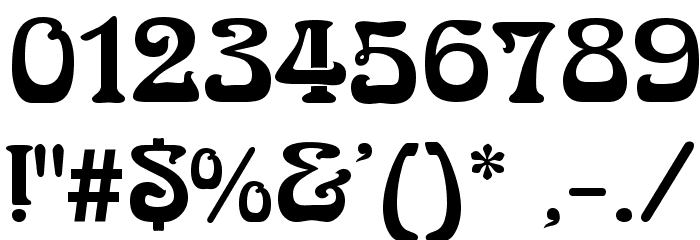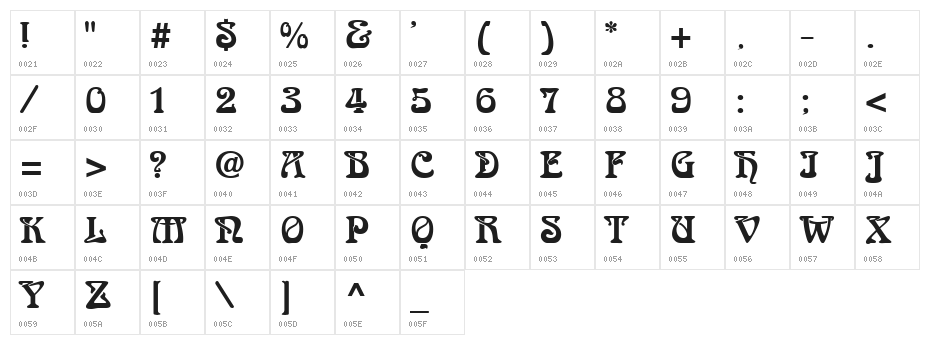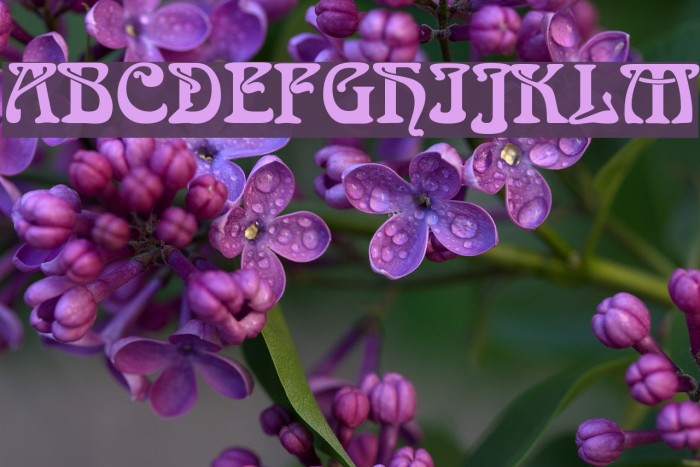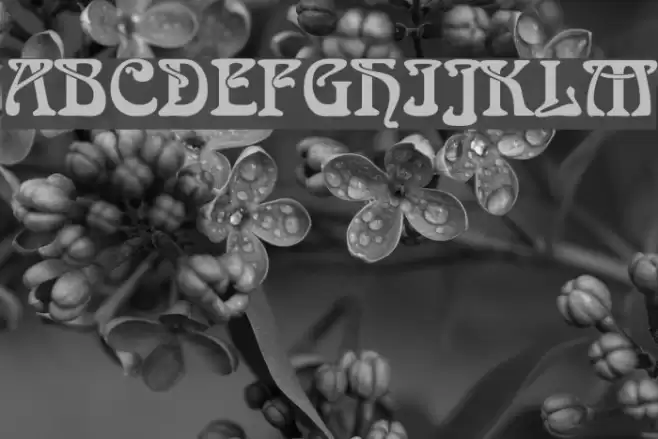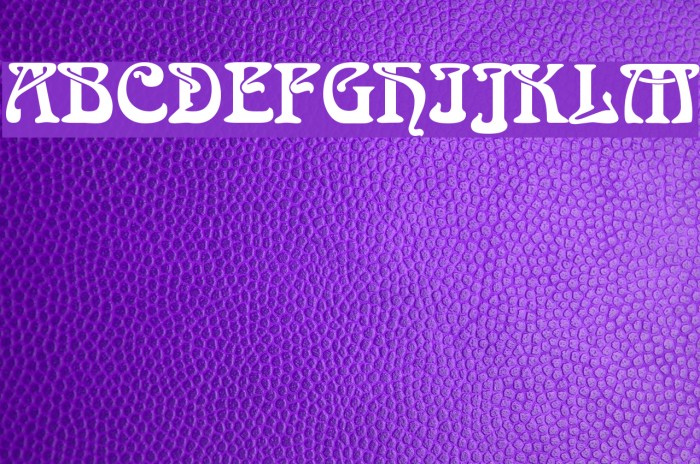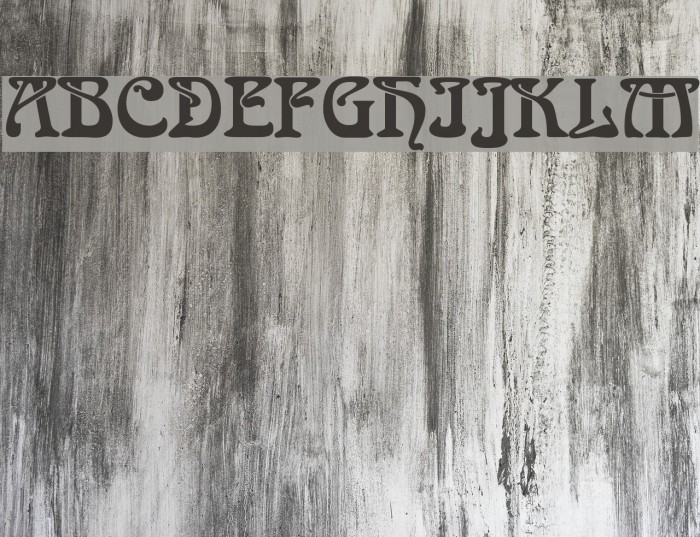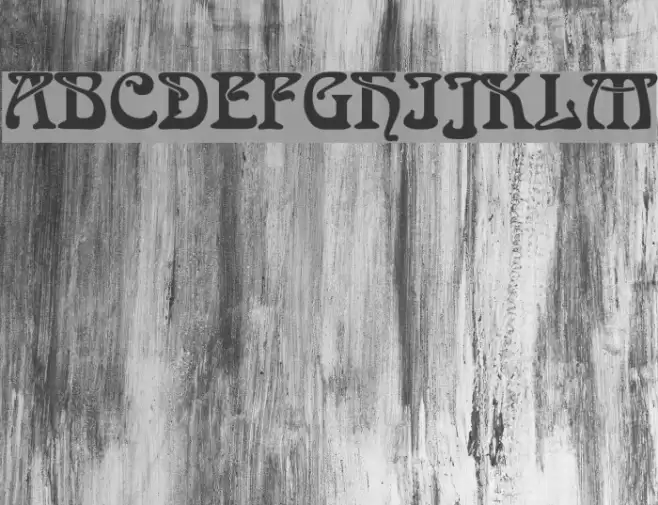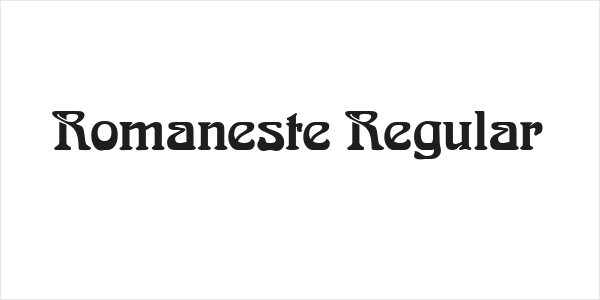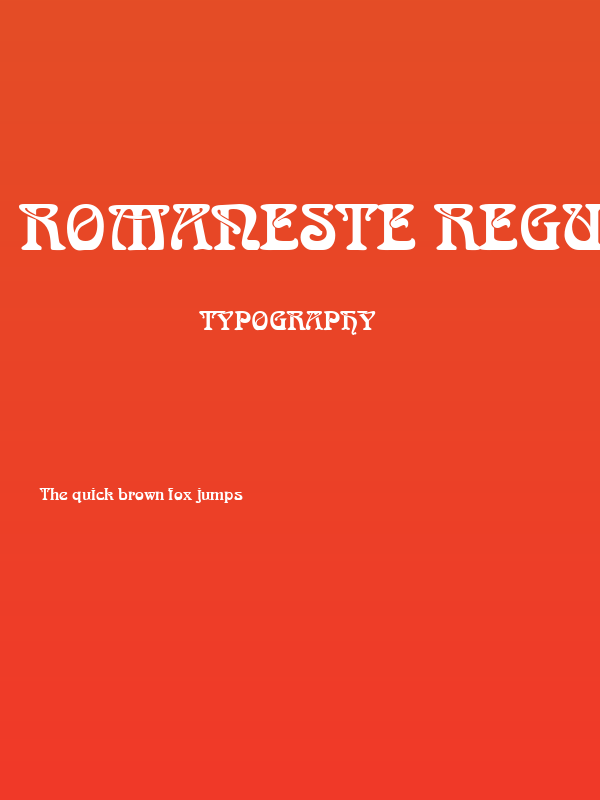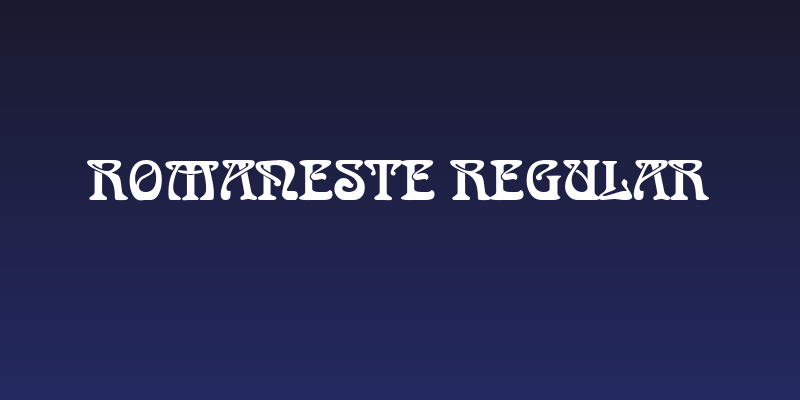
Romaneste Regular Font
Romaneste Regular Description
This font features a unique blend of traditional and modern elements, characterized by its bold, decorative style. The uppercase letters exhibit a distinct flair with intricate curves and sharp edges, creating a dynamic and eye-catching appearance. The lowercase letters maintain a consistent boldness, with rounded forms that contrast with the angular serifs. Numbers are equally bold, with a playful yet structured design. Special characters are crafted with the same attention to detail, ensuring a cohesive look across all glyphs. The overall aesthetic is reminiscent of vintage signage, yet it maintains a contemporary appeal.
| Overall Style | Vintage, Decorative |
| Proposed Projects | Ideal for branding, poster design, and headlines where a strong visual impact is desired. |